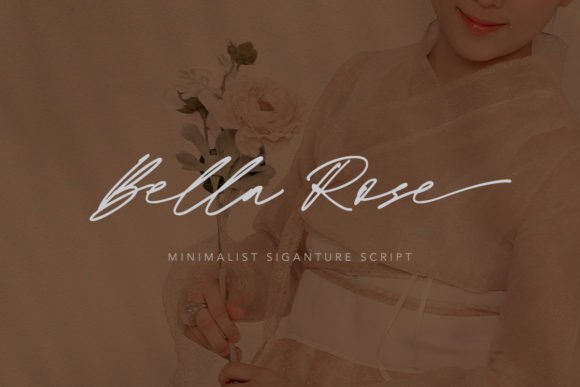
Say goodbye to fonts that make your wedding invitations look dull and tired. Open the door to a realm of elegant beauty with Bella Rose, a script font designed to make your wedding stationery sparkle. Each letter is crafted with the utmost care, adorned with intricate flourishes and subtle curves that dance like a bride gliding down the aisle.
With Bella Rose, your wedding invitations will exude a grace and sophistication that will transport your guests to a world of timeless romance. Its meticulously handwritten style evokes the era of classic love letters and treasured keepsakes, adding a touch of nostalgia and charm to your special day.
But Bella Rose is more than just a wedding font—it's a versatile masterpiece that enhances any project craving a touch of elegance. From cards and posters to branding and logos, this font knows how to make a statement.
Its captivating glyphs, bursting with personality, add a dash of whimsy and joy to your creations. Bella Rose is your passport to a design journey filled with artistic expression and endless possibilities.
And behind Bella Rose lies the creative brilliance of baletype, a font designer renowned for transforming words into art. Their passion for typography shines through each stroke of Bella Rose, ensuring your designs stand out from the crowd.